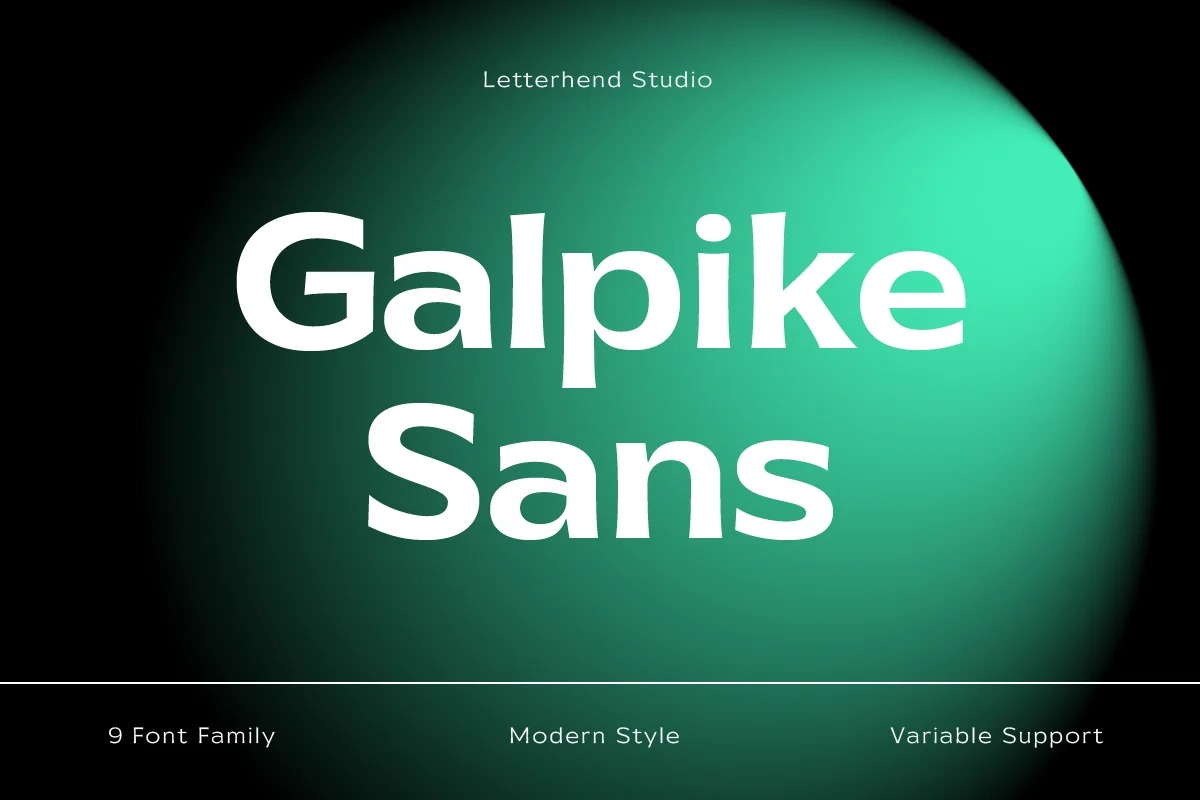
Galpike Font
Galpike Sans Serif Font
This is a geometric sans serif font created by Letterhend Studio with modern look and good legibility. The typeface is versatile to blend in your design- with 9 weight, ranging from regular, medium, thin, bold, semibold, extrabold, light, extralight and black & 18 styles + variable type to touch a lot of personality. Perfect anywhere you need a right finas touches for branding, publishing, titles, book, magazine , and use on UI/UX design.